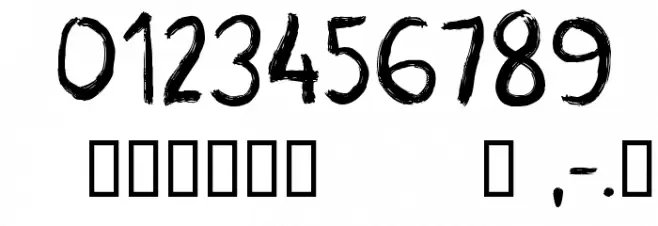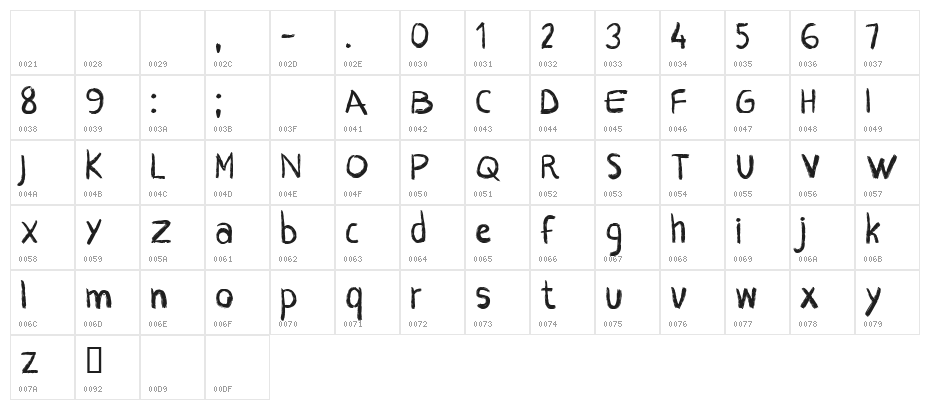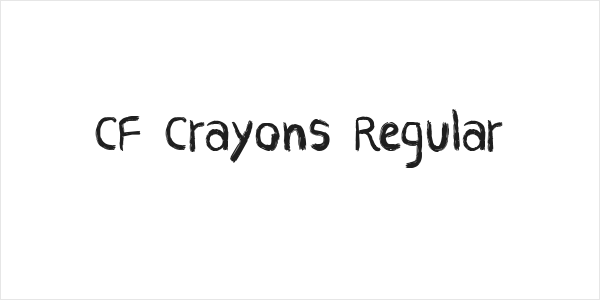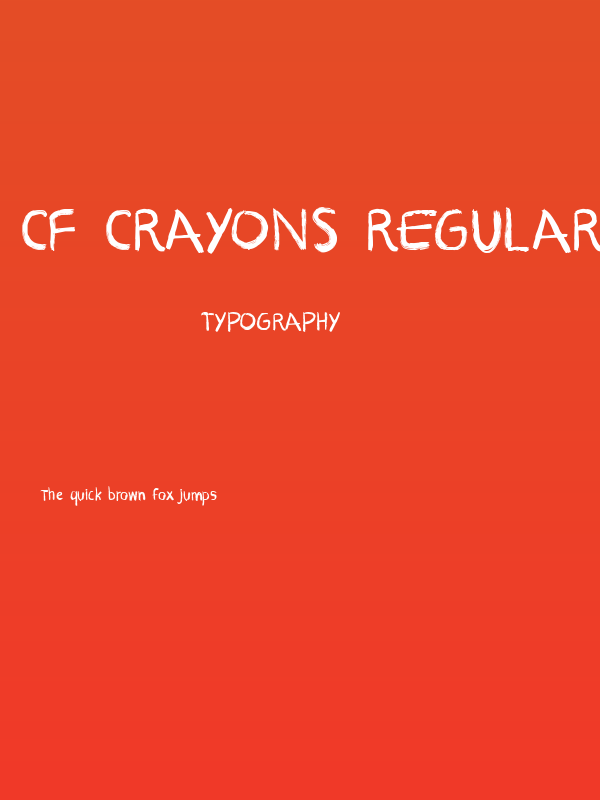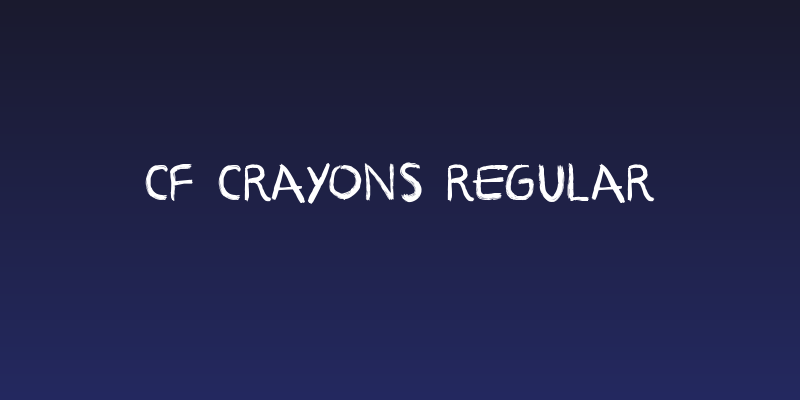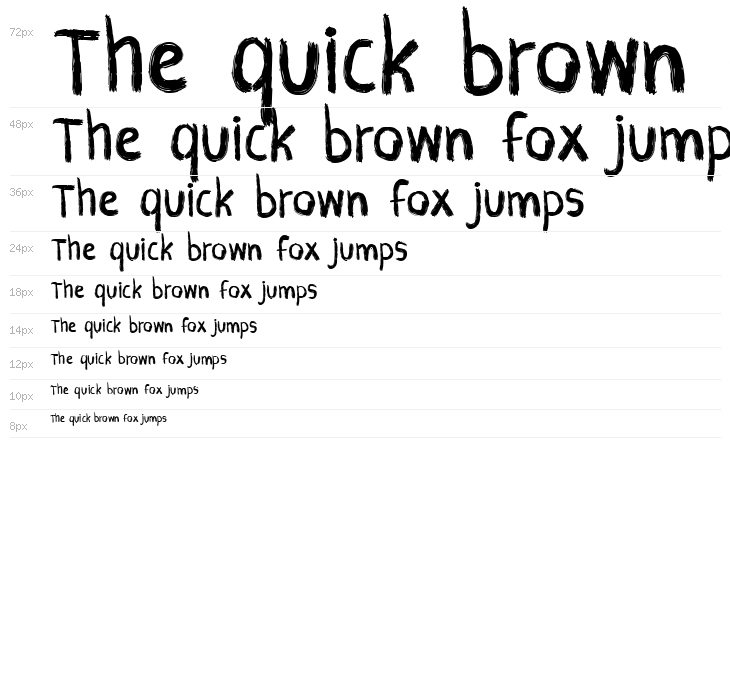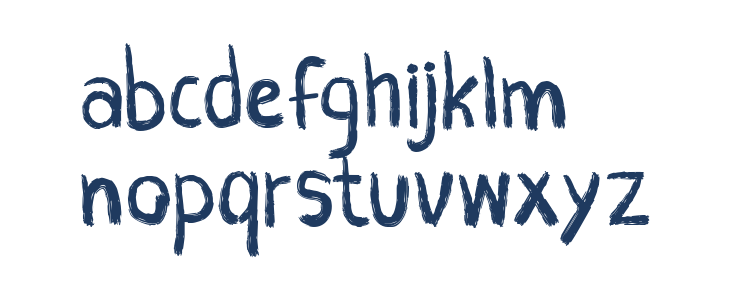
CF Crayons Regular Font
CF Crayons Regular Description
This font features a playful, hand-drawn style reminiscent of crayon or chalk writing. The characters have a rough, textured appearance, giving them a casual and informal look. The strokes are uneven, with varying thicknesses that add to the hand-crafted feel. The uppercase and lowercase letters maintain a consistent style, while the numbers and special characters complement the overall design. This font is ideal for projects that require a fun and approachable aesthetic, such as children's books, educational materials, or creative branding.
| Overall Style | Playful, Casual |
| Proposed Projects | Ideal for children's books, educational materials, creative branding, and playful designs. |